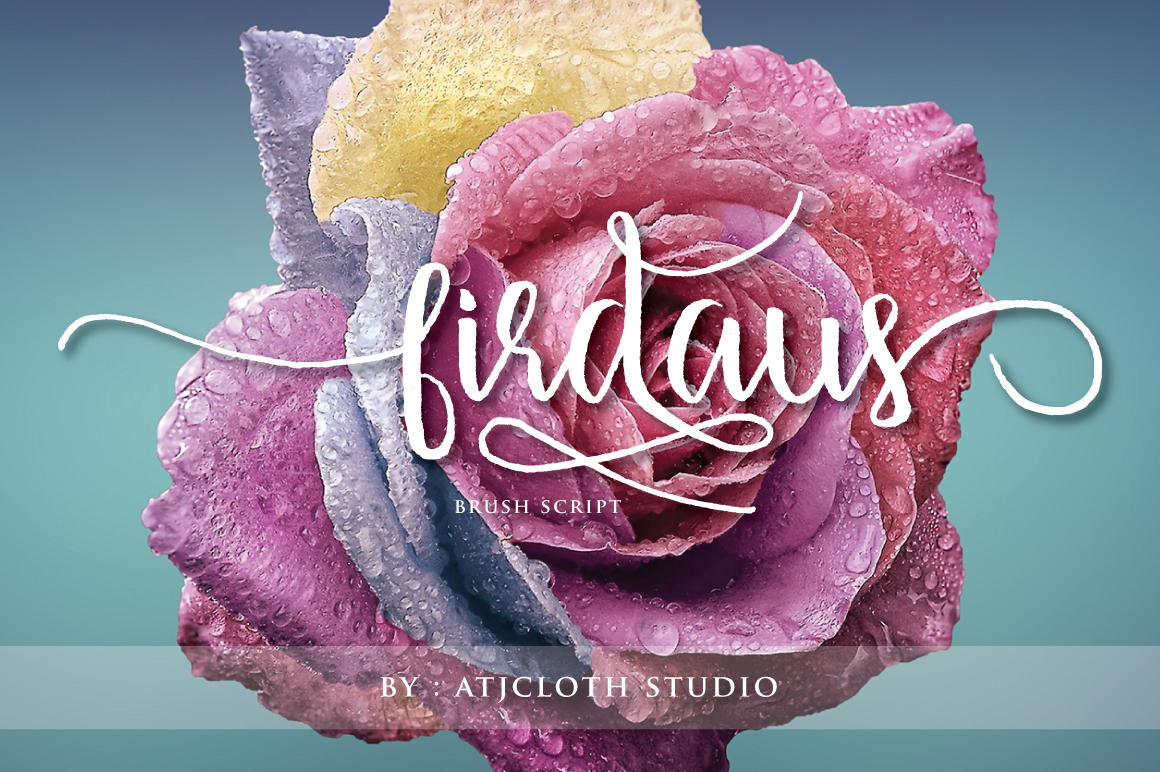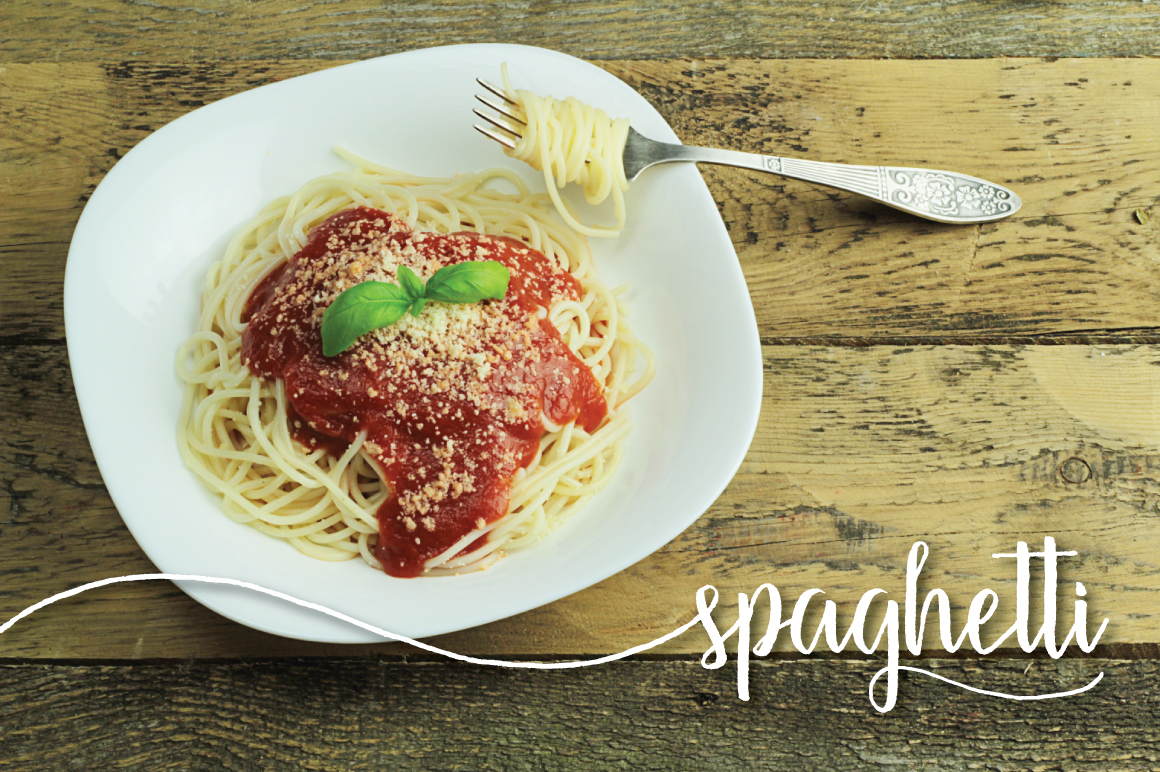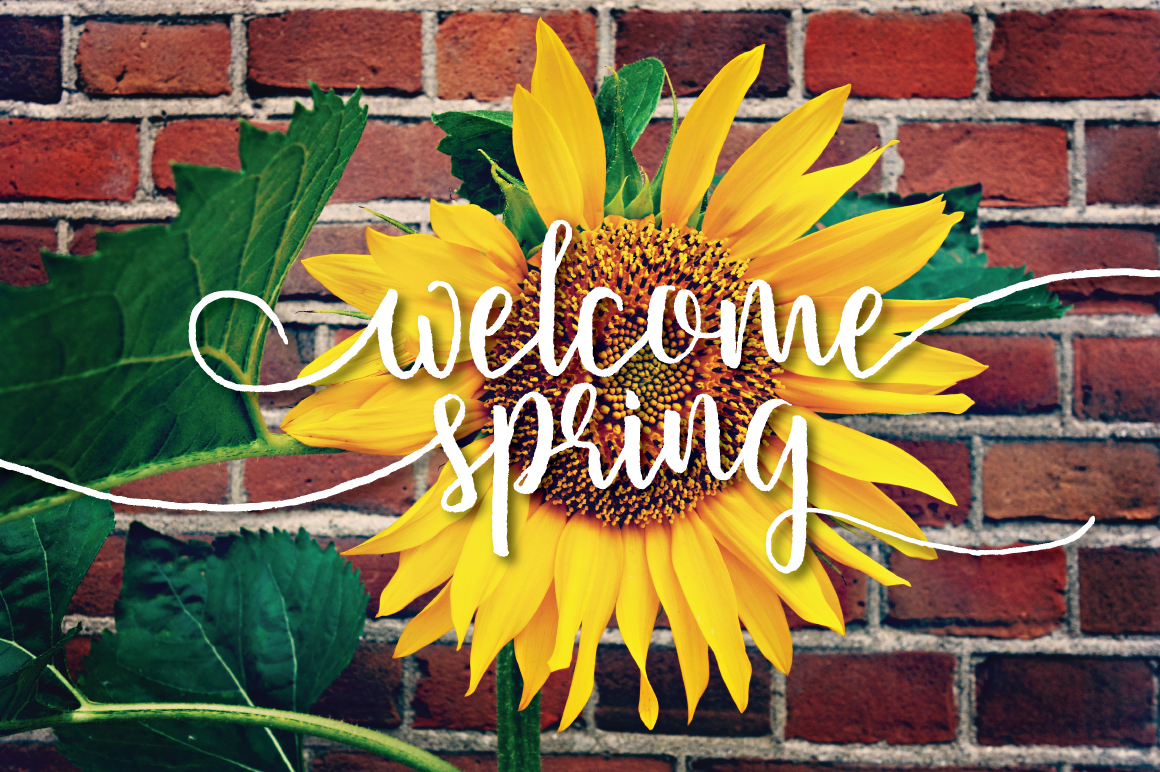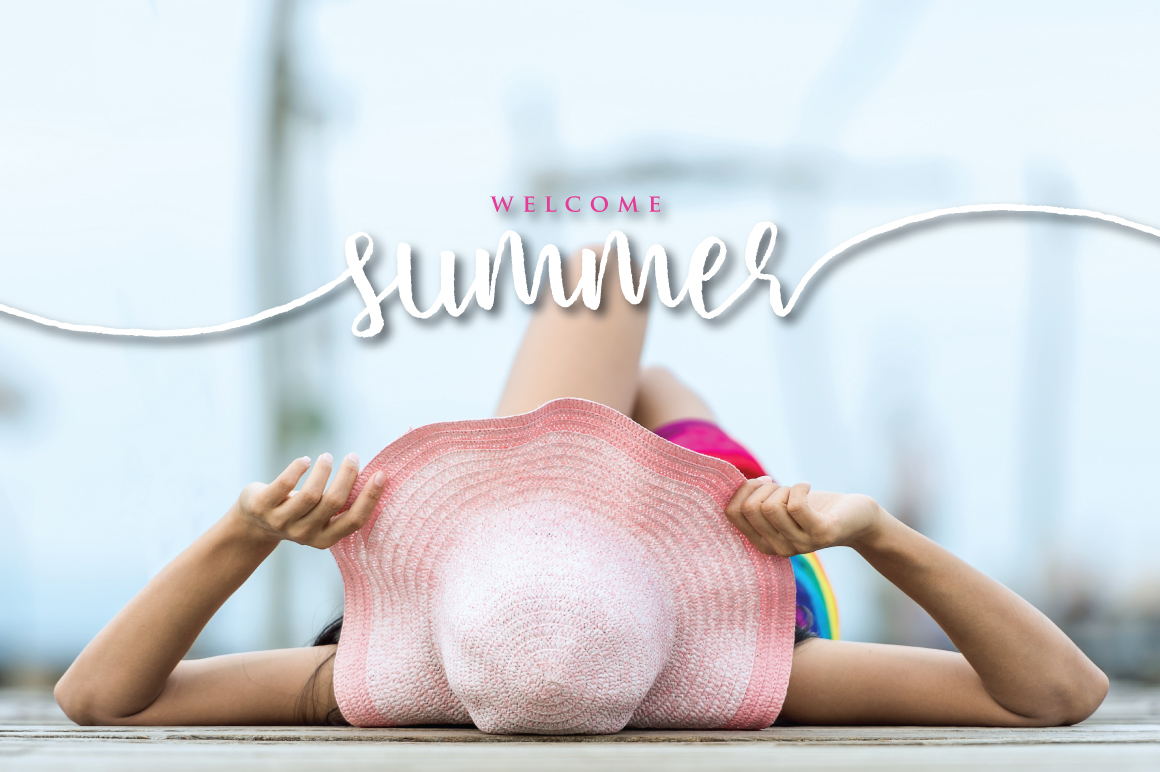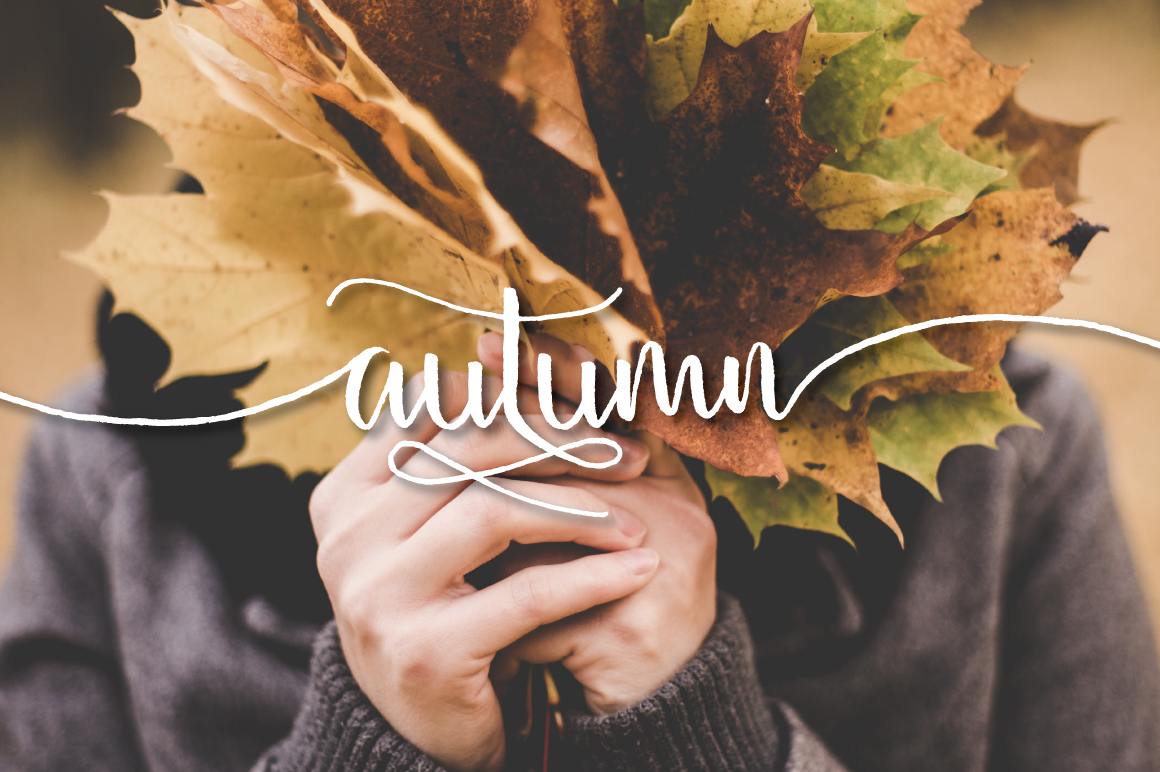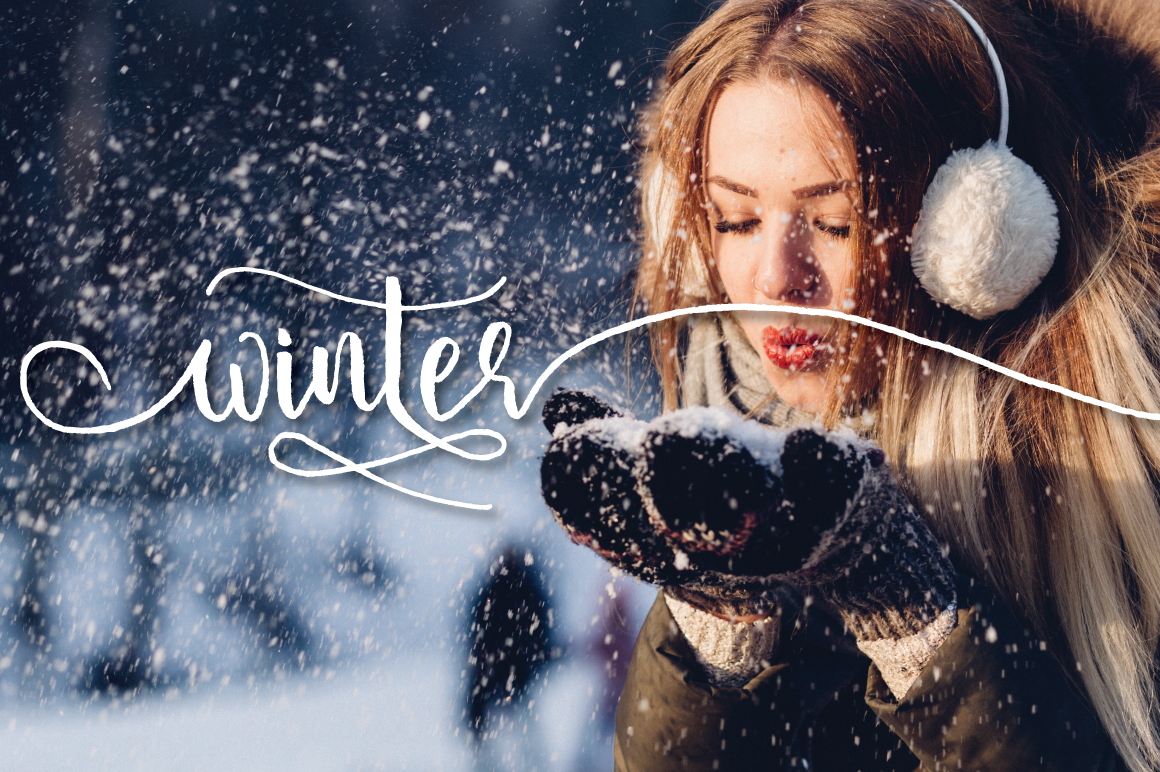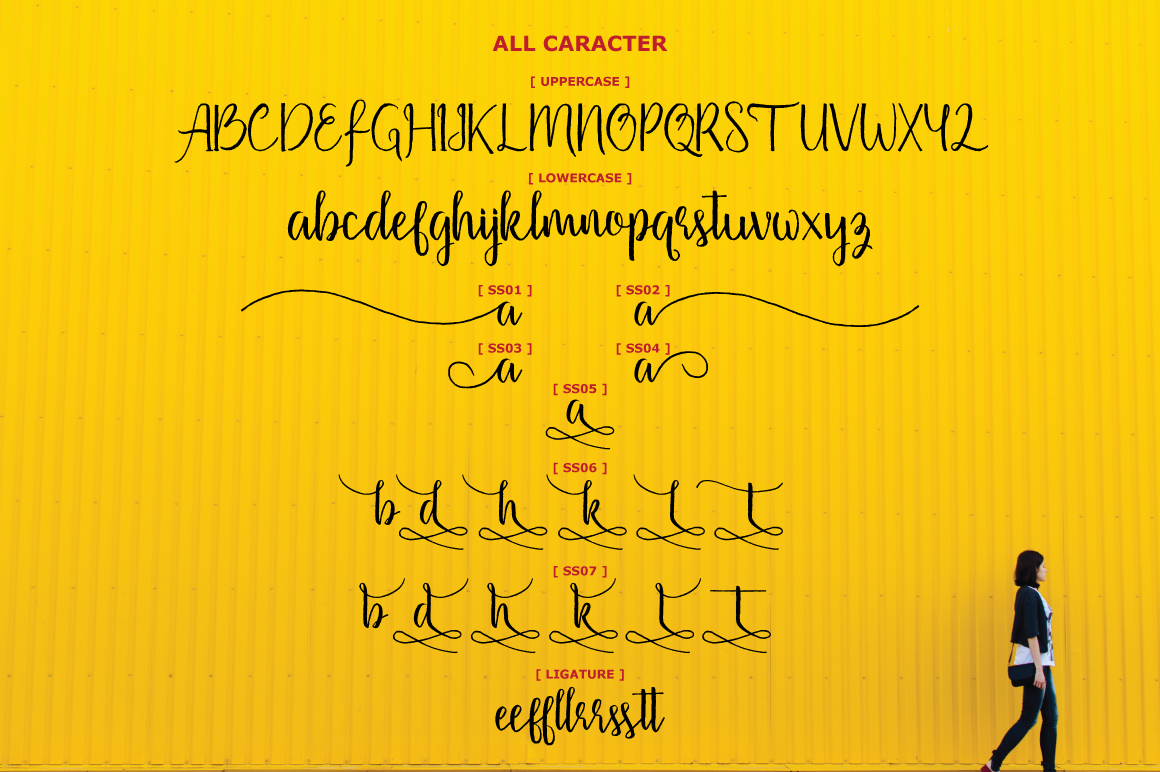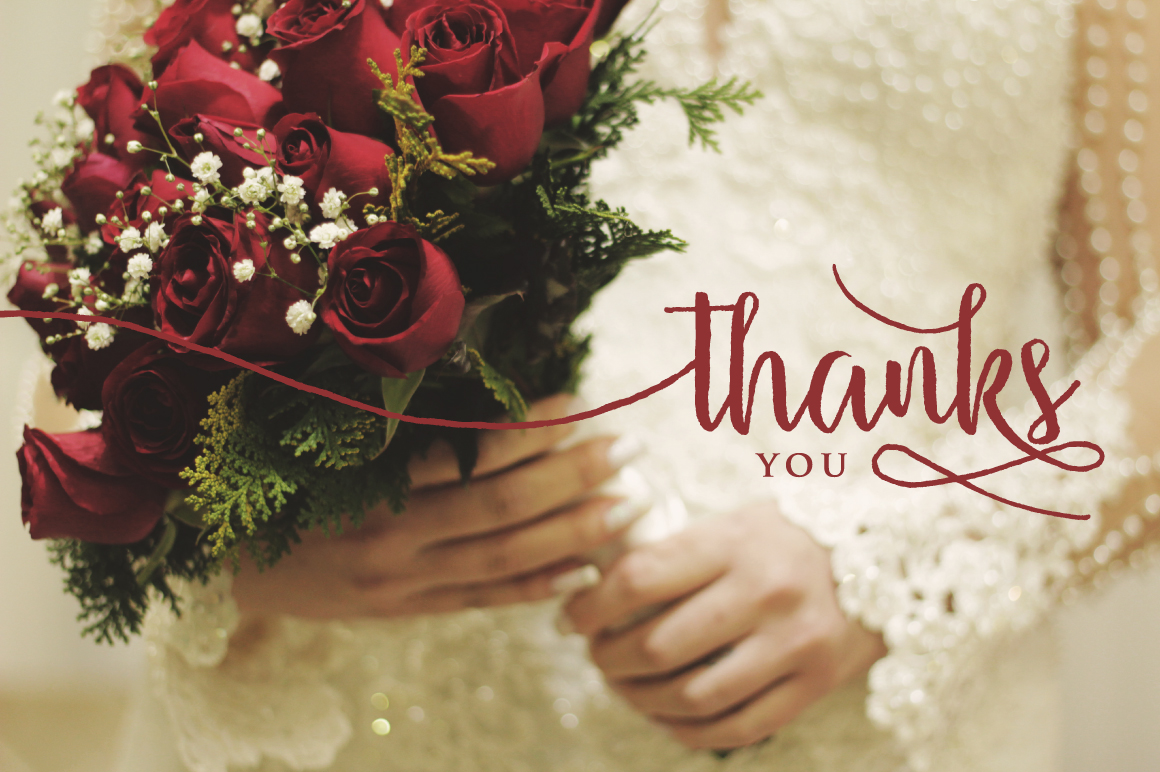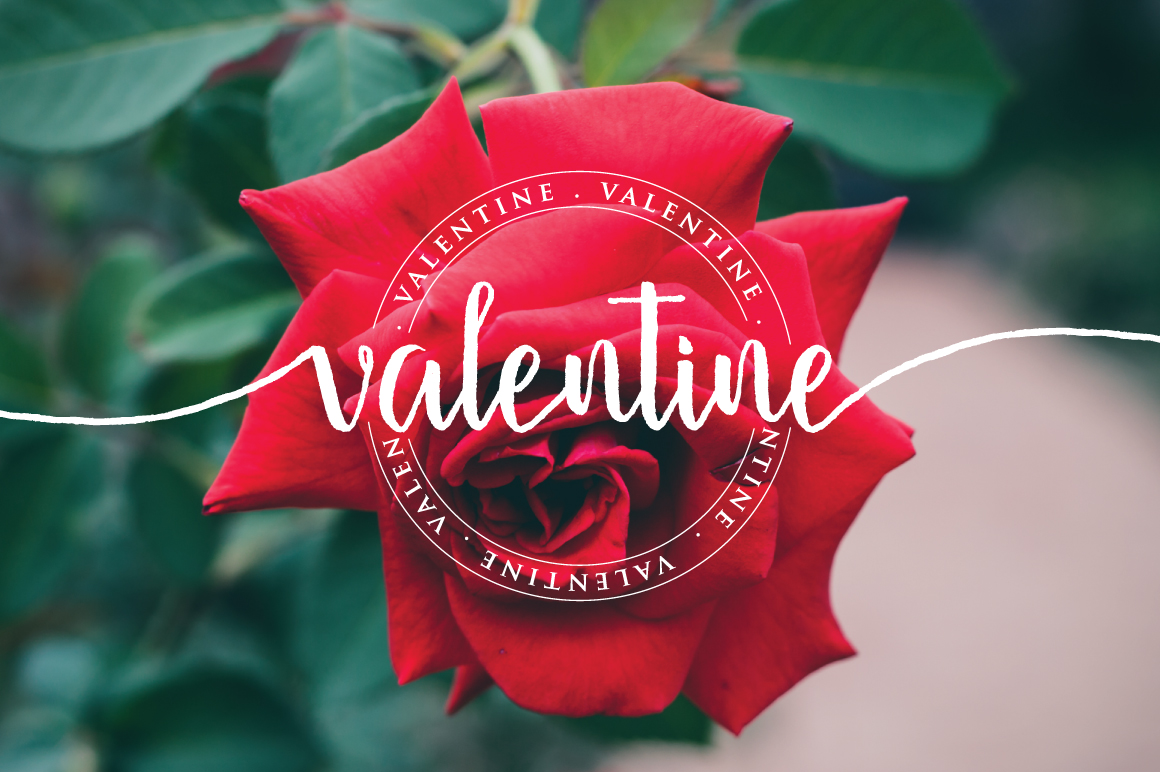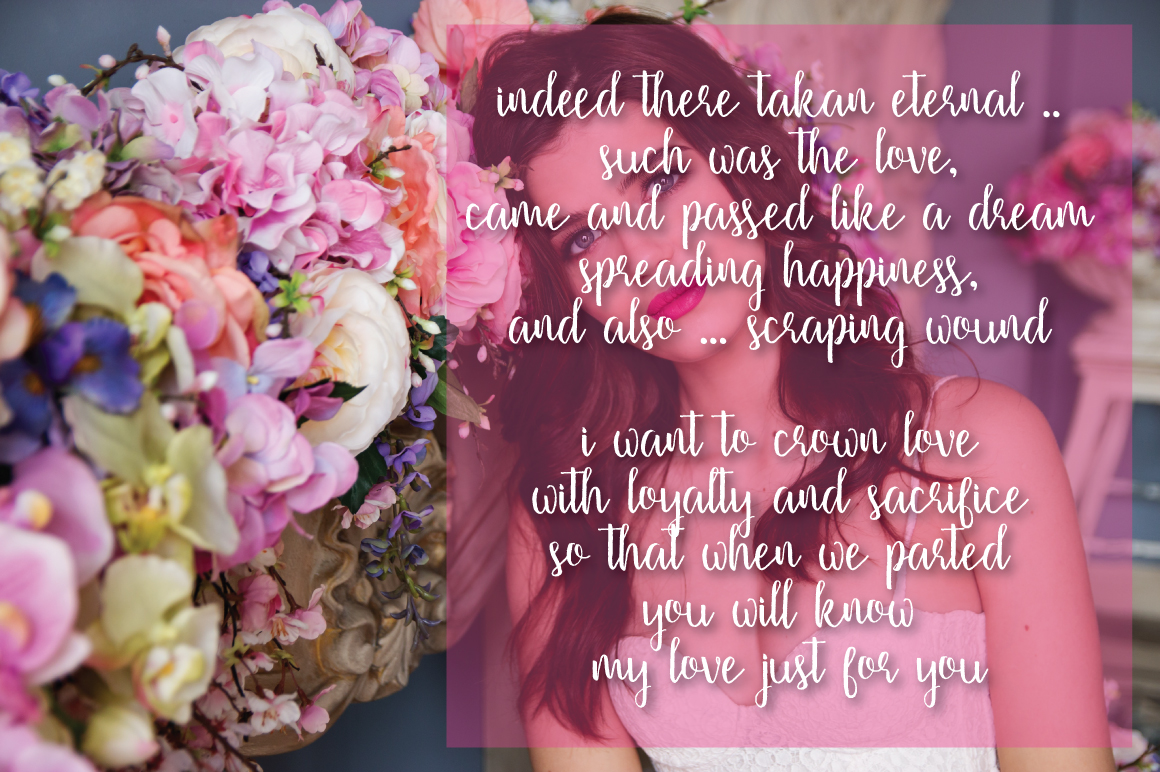
HomeScript FontsFirdaus Font Script Fonts Firdaus Font FacebookXPinterestWhatsApp Firdaus Font Poster 2 Firdaus Font Poster 3 Firdaus Font Poster 4 Firdaus Font Poster 5 Firdaus Font Poster 6 Firdaus Font Poster 7 Firdaus Font Poster 8 Firdaus Font Poster 9 Firdaus Font Poster 10 Firdaus Font Poster 11 Firdaus Font Poster 12 Firdaus Font Poster 13 Firdaus Font Poster 14 Firdaus Font Poster 15 Firdaus Font Poster 16 About Firdaus Font Firdaus is a fresh, handmade font that has a calligraphy style. DOWNLOAD ON CREATIVE FABRICAThis font is sold and delivered by Creative Fabrica. Font Canyon may earn a commission if you buy through this link. People also explored Monday Vintage Font Mokabella Font Victoria Font German Chocolate Font Intouch Sky Font Straker Runova Font Roses Bloom Font Monogram H | Monofont Caps H Font 346 0 TagsFirdaus Font Previous articleBlueHand FontNext articleGuys My Age Font LEAVE A REPLY Cancel reply Comment: Please enter your comment! Name:* Please enter your name here Email:* You have entered an incorrect email address! Please enter your email address here Website: Save my name, email, and website in this browser for the next time I comment. Personal Use Free Mama Personal Use Free Read more about this font Thruster Personal Use Free Read more about this font Wanita Cantik Personal Use Free Read more about this font Underwood Champion Personal Use Free Read more about this font BLOG Top 10 Handwritten Fonts That Elevate Your Designs Top 10 Handwritten Fonts That Will Elevate Your Designs Handwritten fonts bring a warm, personal touch to every creative project. Whether you're designing logos, invitations,... How to Cut Any Font on Cricut: Convert a Font to SVG (Free) Using Fonts in Digital Marketing: Tips to Strengthen Your Brand Identity To increase your work productivity, choose the most readable fonts.